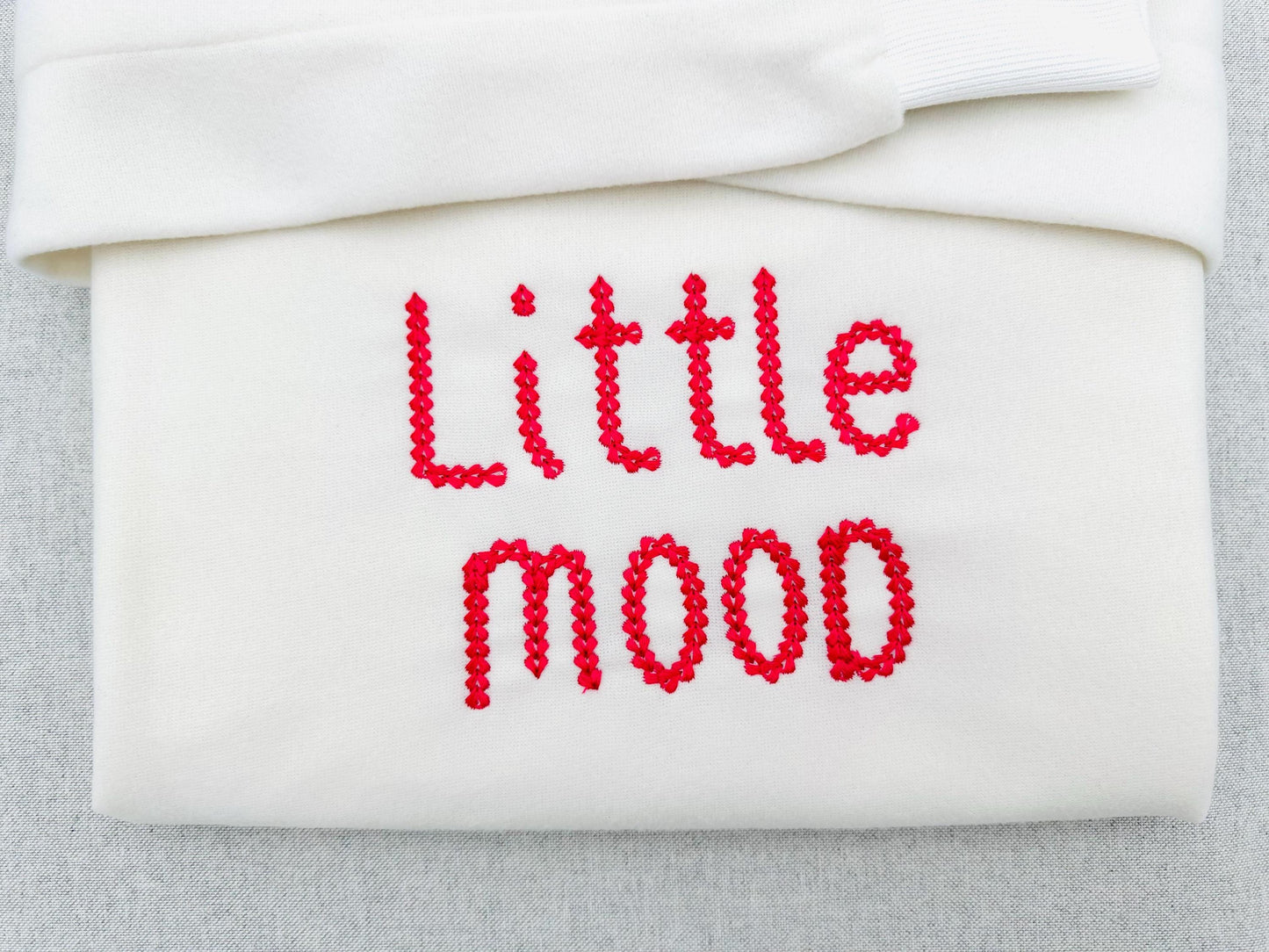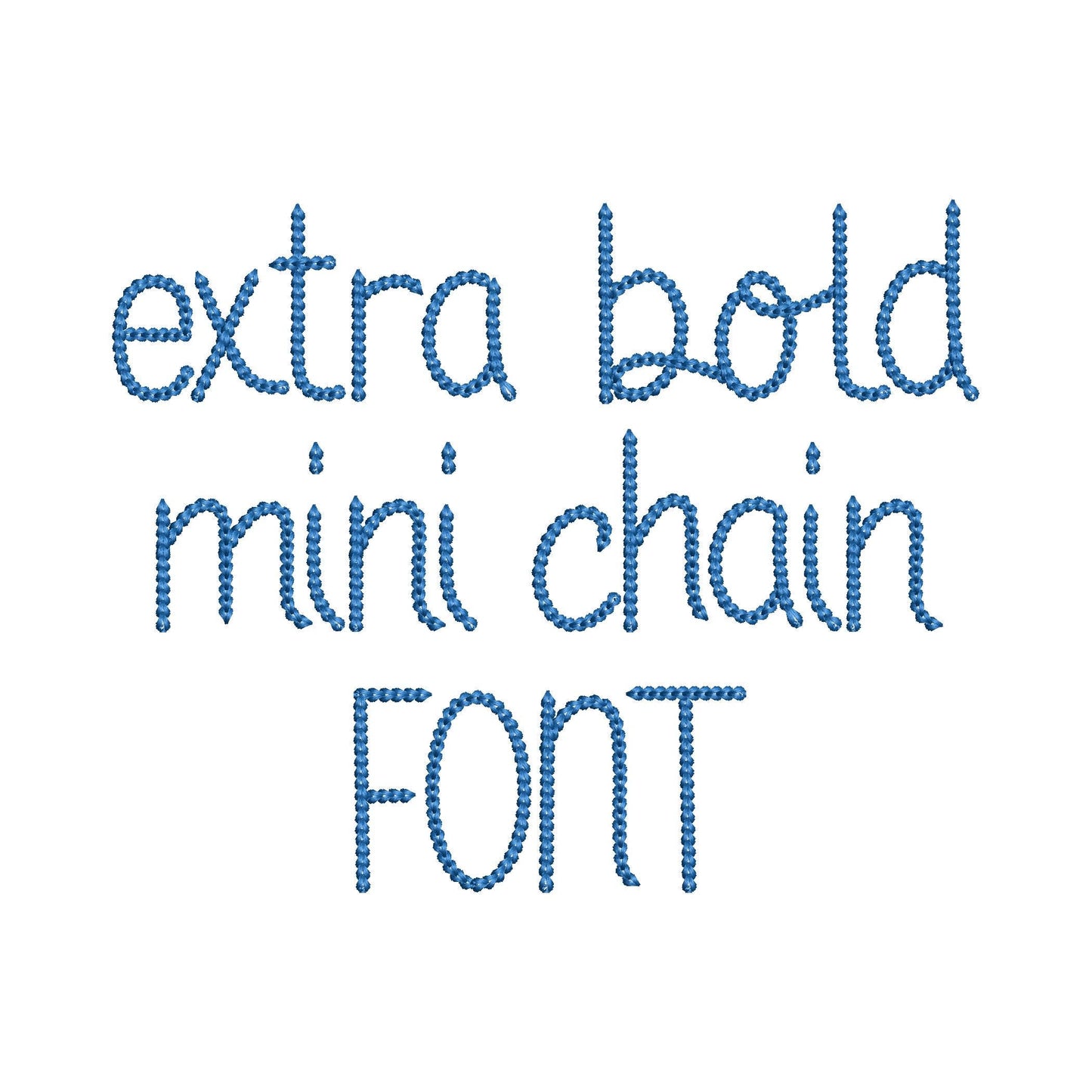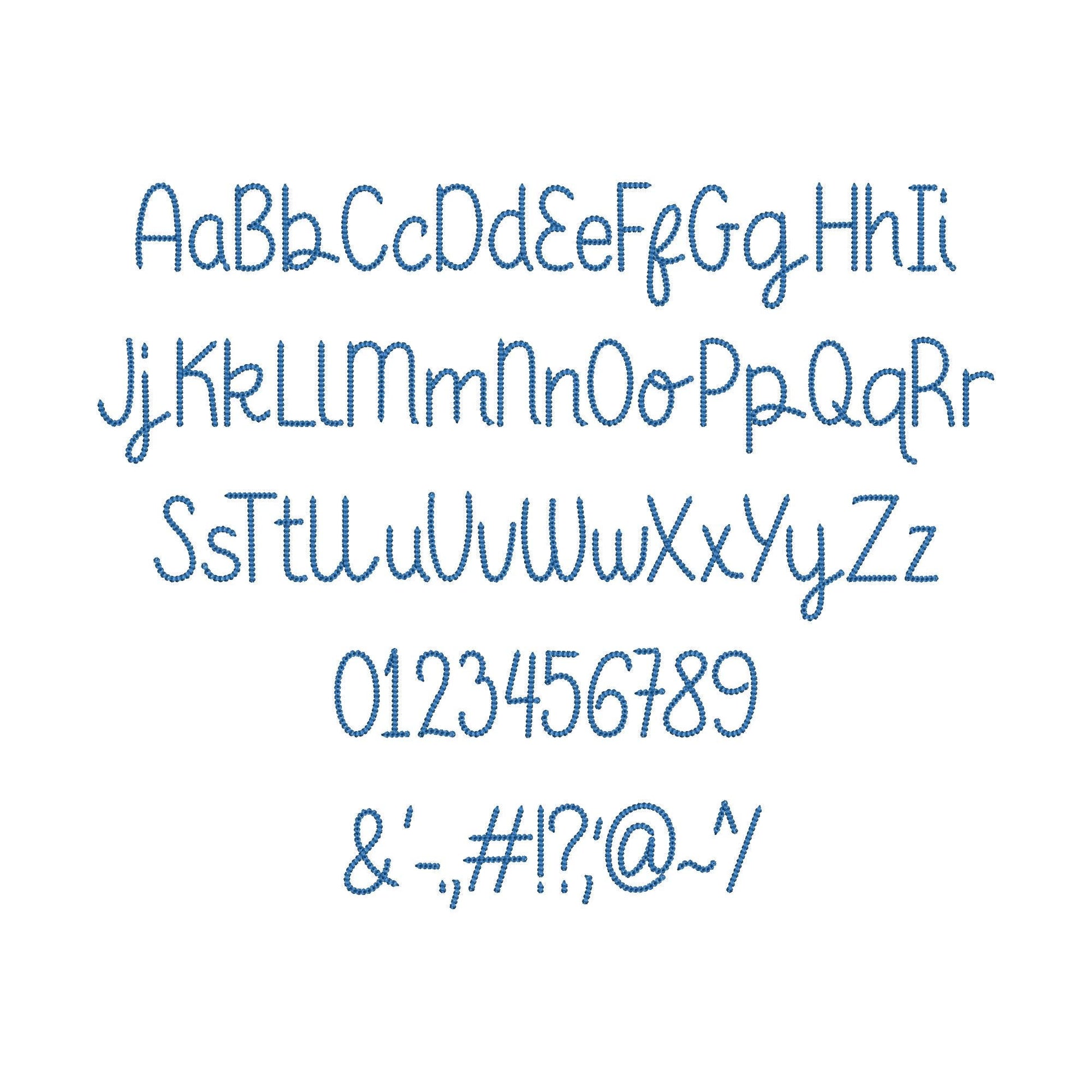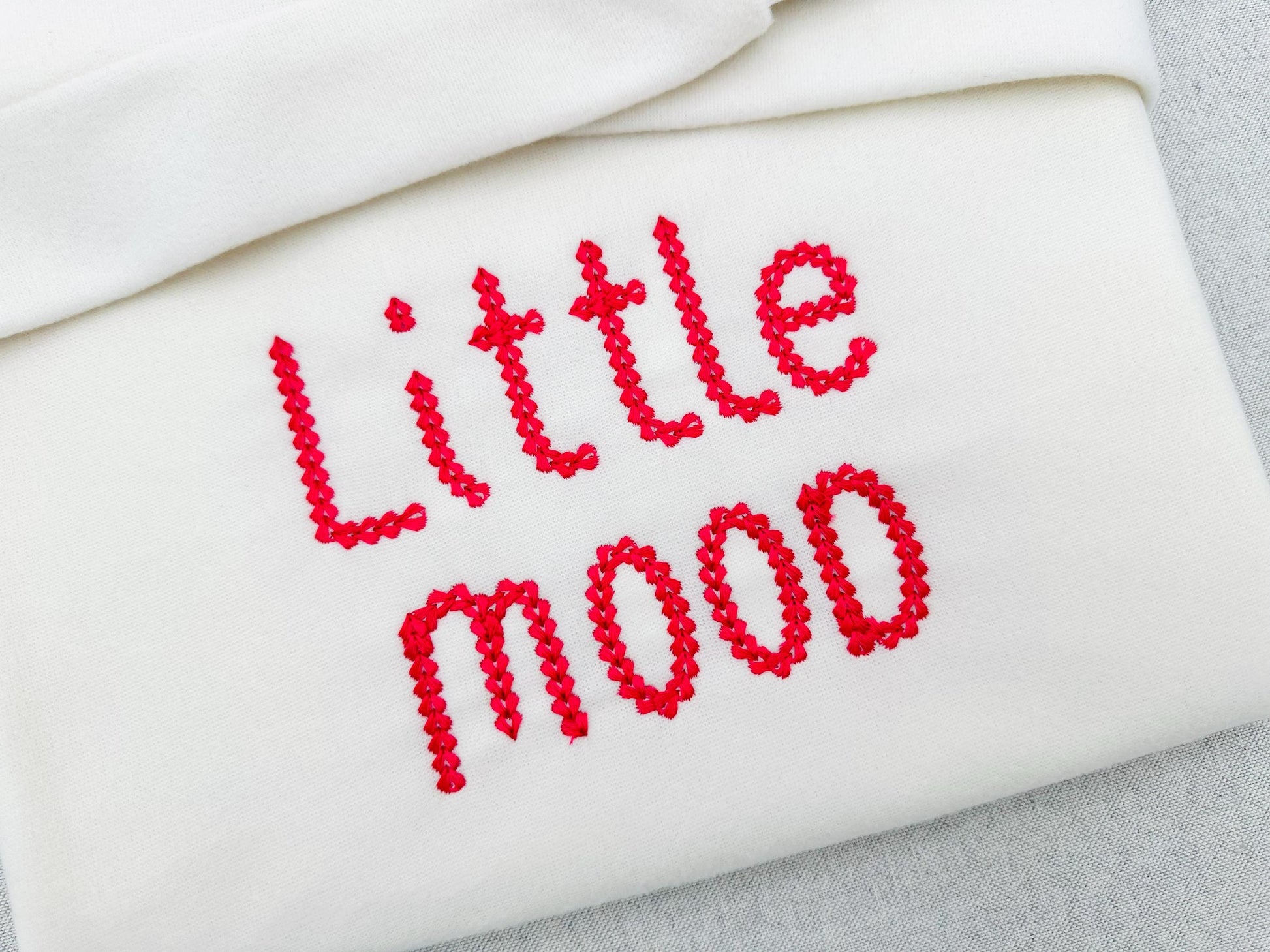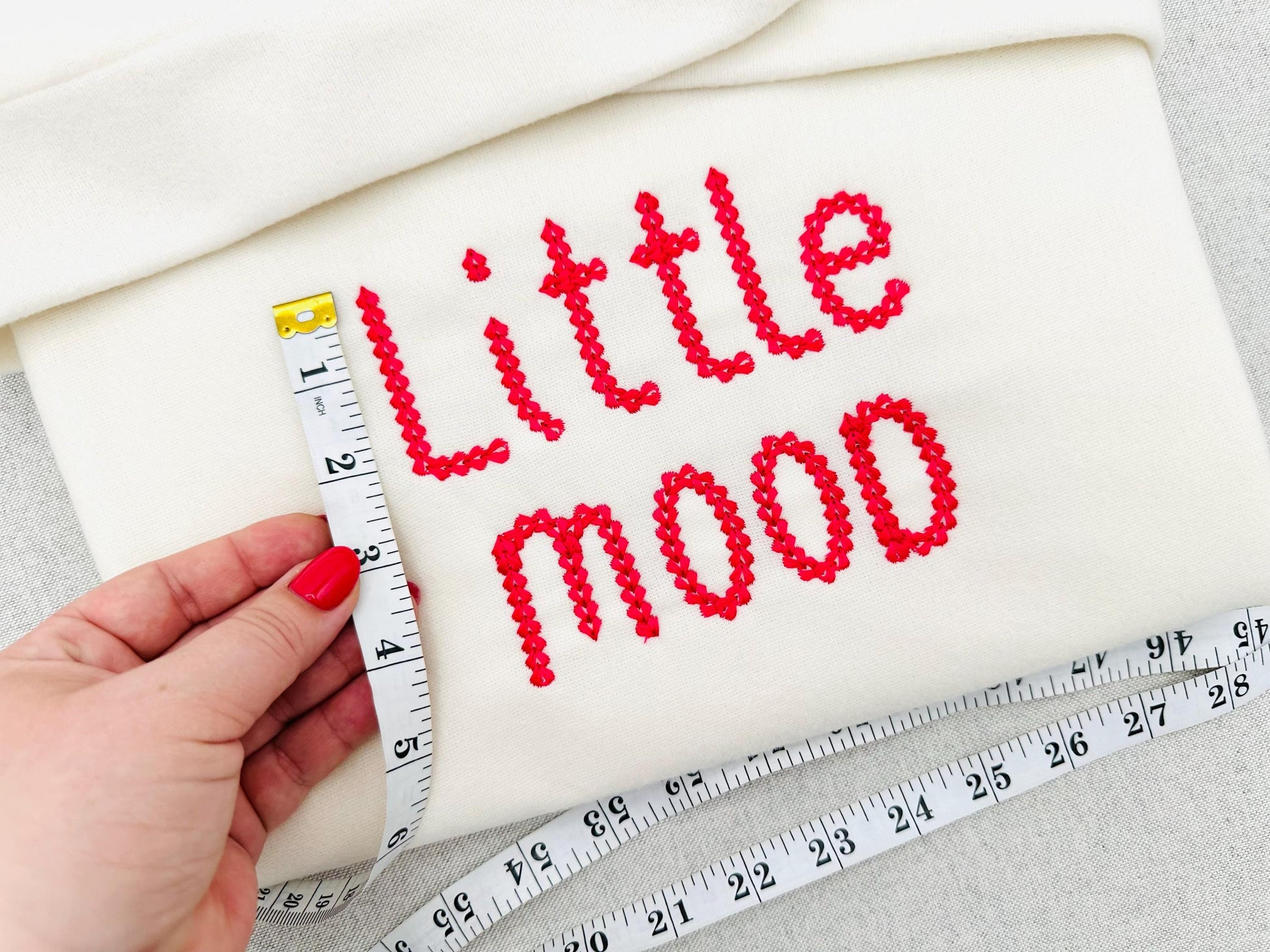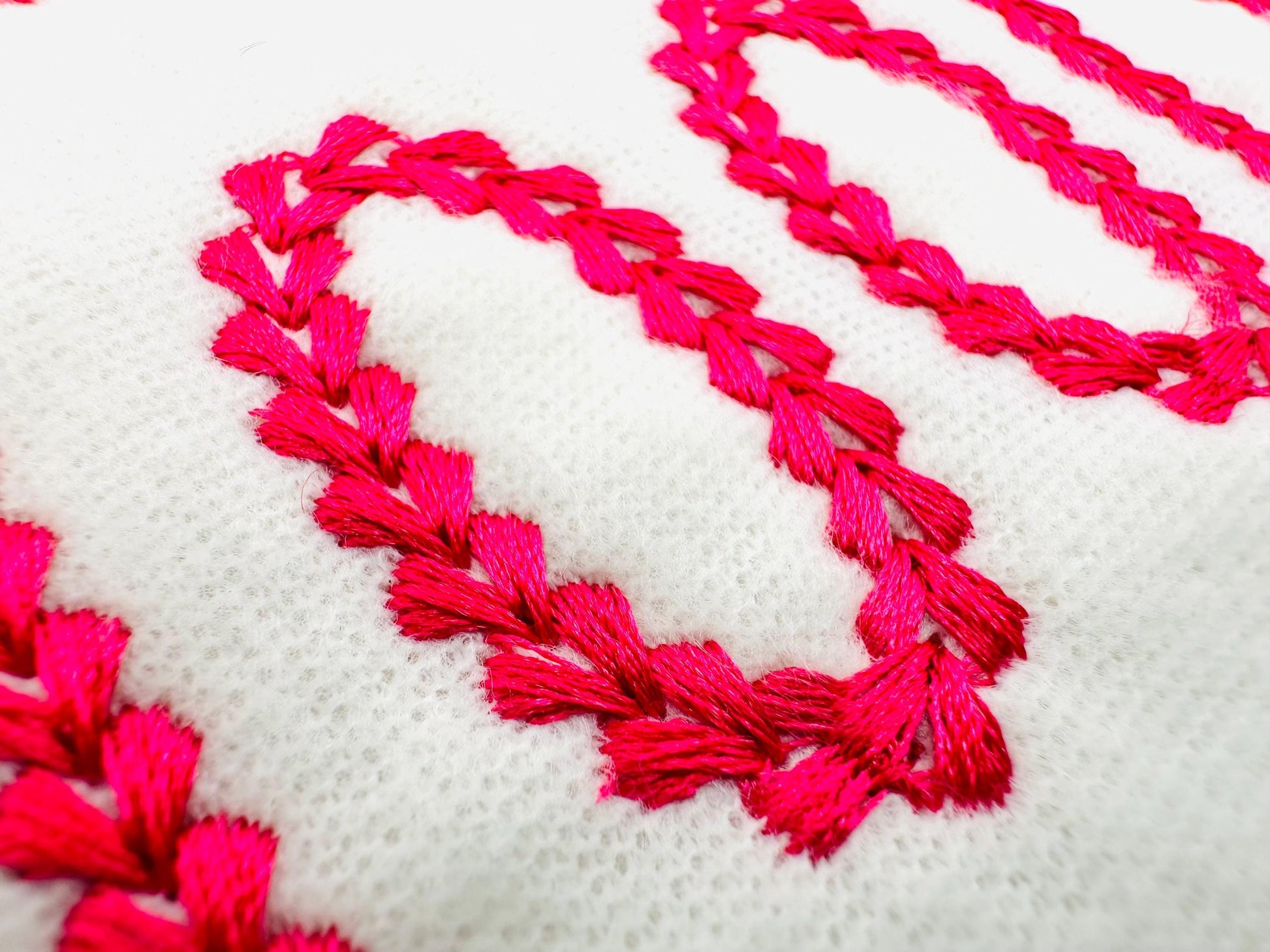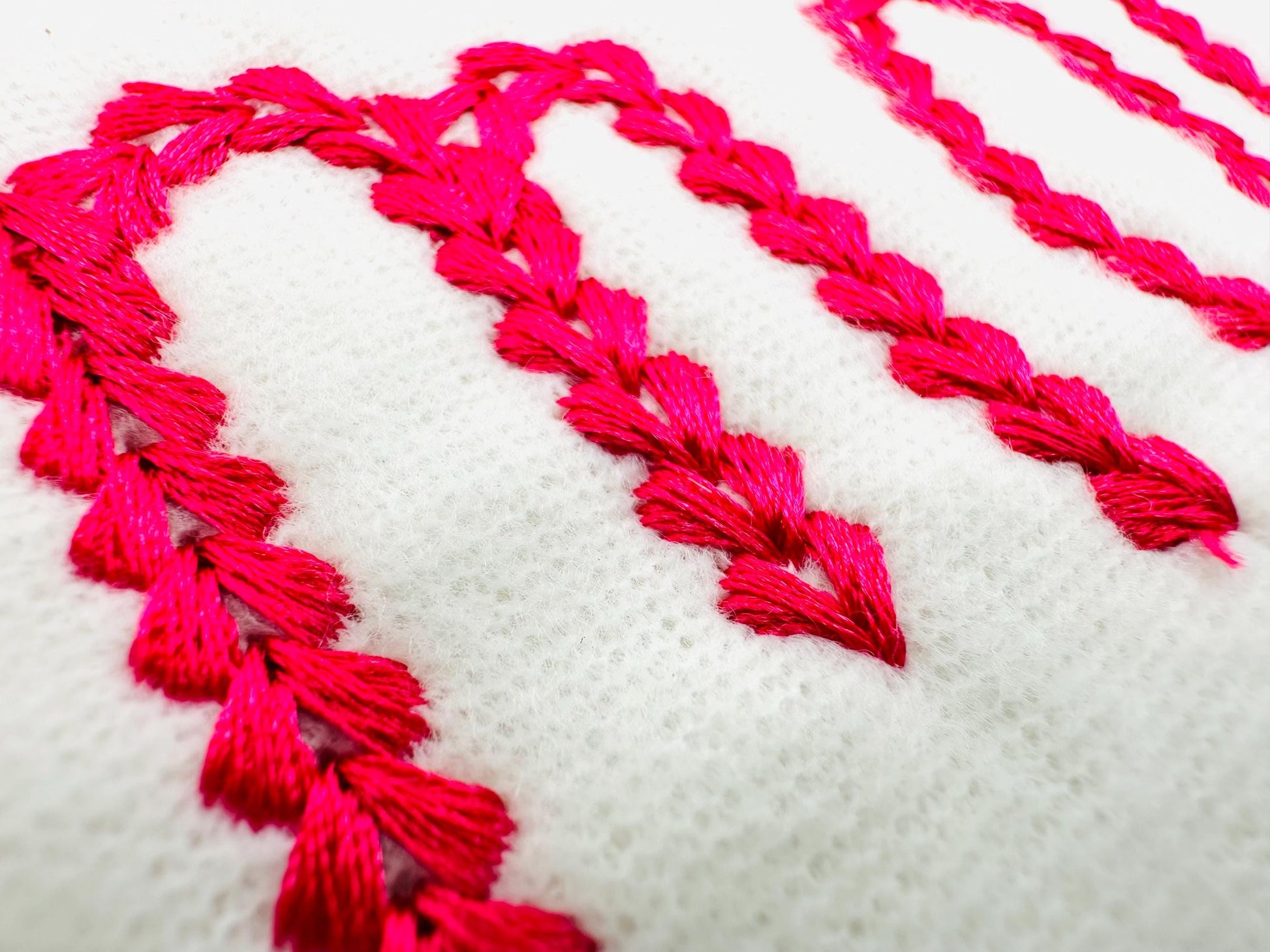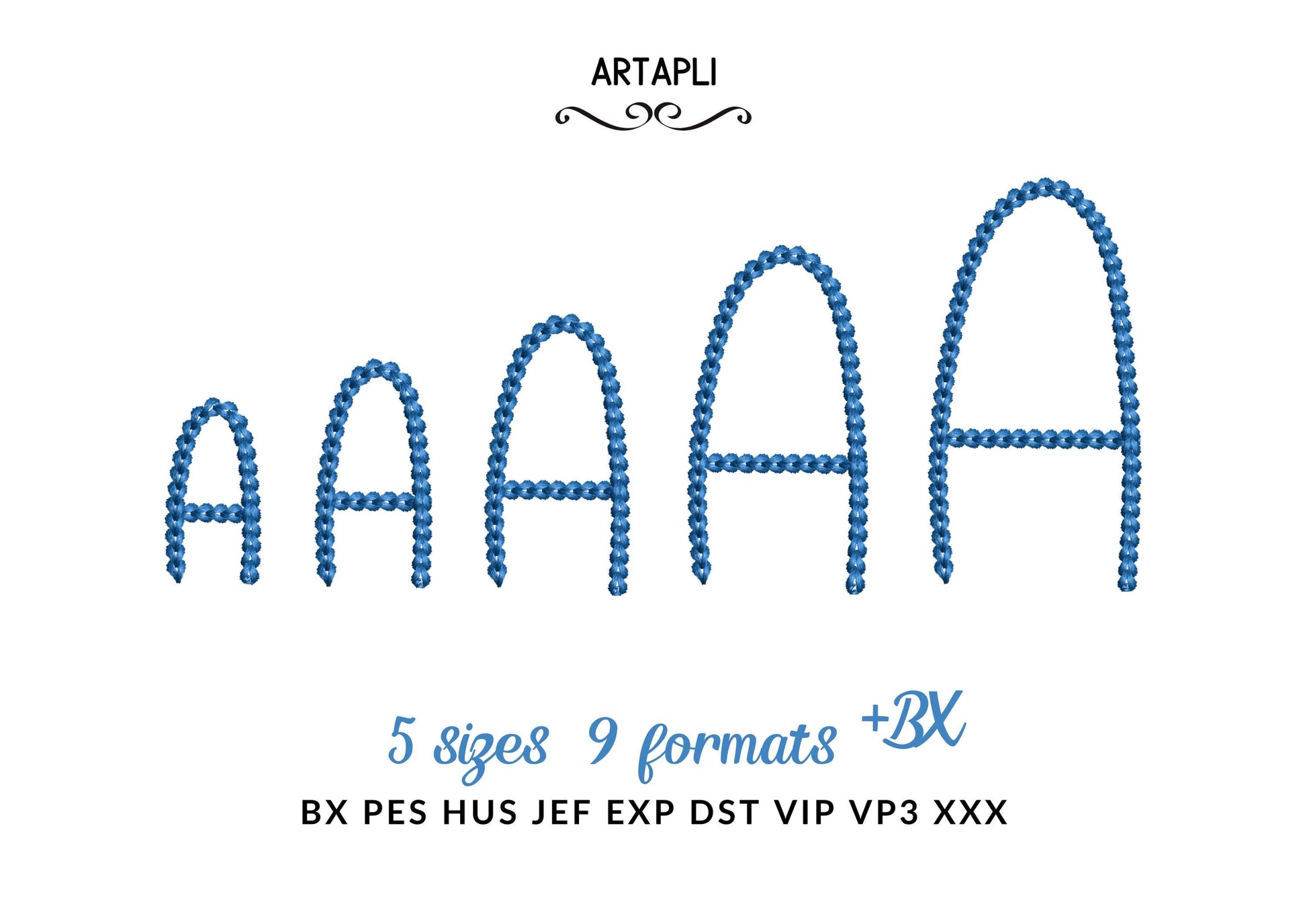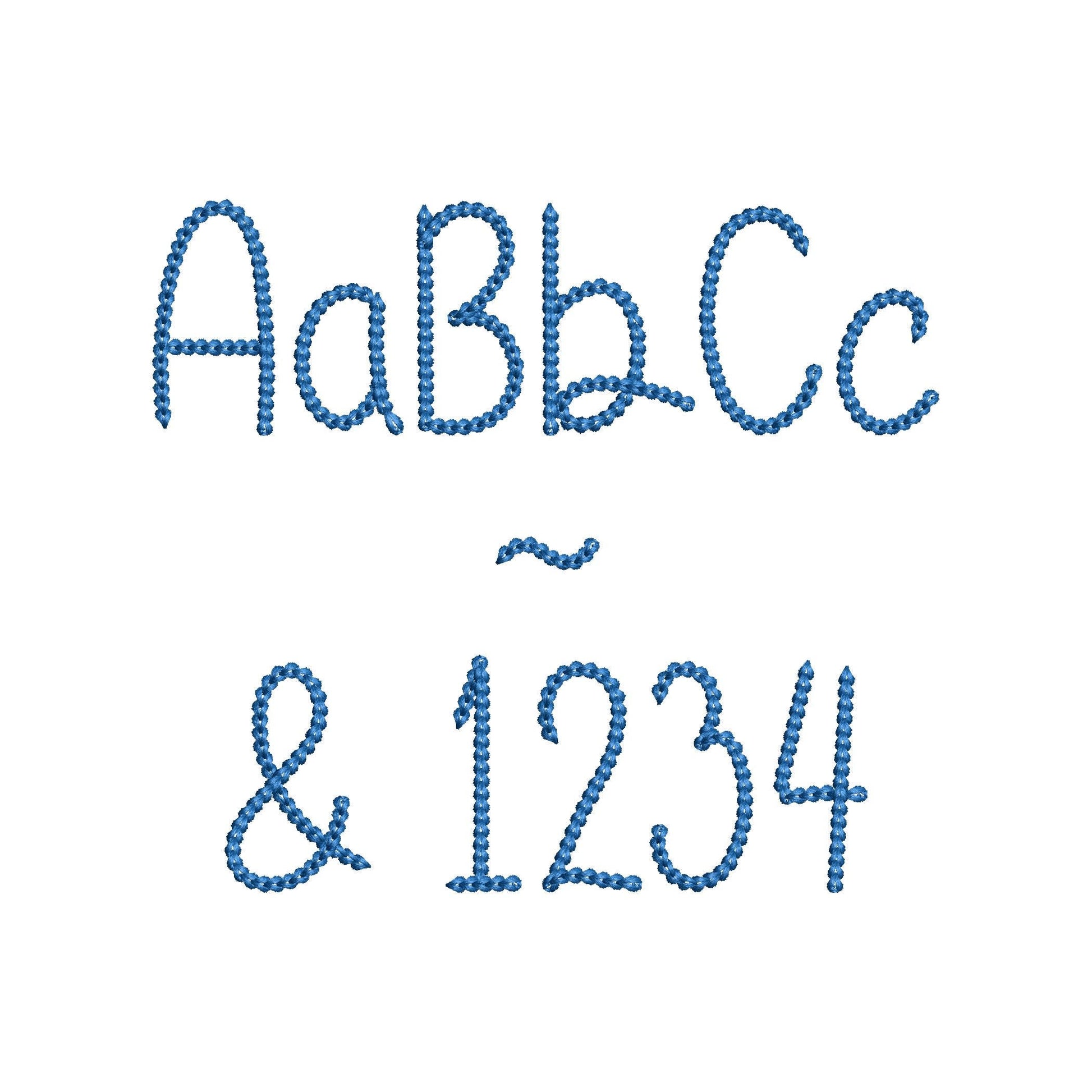
Extra Bold Mini Chain Font Summer
Or click to open the linkA small, extra bold handwritten font in chain stitch. Made for names and short words on kids clothes, cuffs, pockets, towels and gifts.
The letters come in five sizes: 1.1, 1.3, 1.6, 2 and 2.4 inches. Includes uppercase and lowercase letters, numbers 0-9 and punctuation.
- Summer mini chain font: uppercase and lowercase letters, numbers 0-9 and punctuation
- 5 letter sizes, 1.1 to 2.4 in